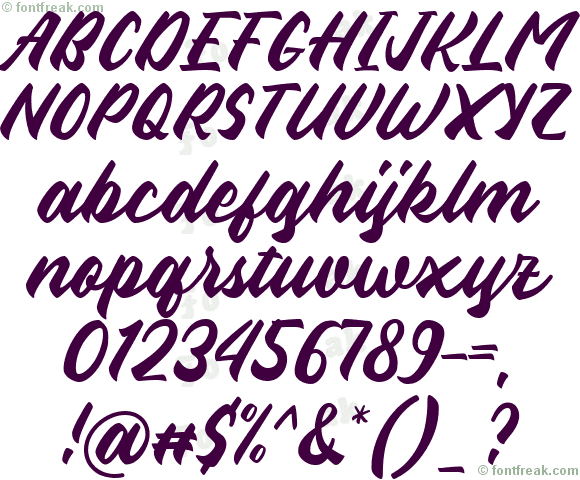
Aliena
About Aliena
Aliena, designed by Situjuh Nazara in 2018, is a striking display typeface that captures attention with its unique visual flair. This font falls under the category of decorative scripts, characterized by its fluid, cursive strokes that evoke a sense of elegance and creativity. The Aliena font features a medium stroke weight with moderate contrast, providing a balanced appearance that enhances readability while maintaining its artistic essence. The letterforms exhibit a graceful flow, with slightly exaggerated curves and embellishments that contribute to its distinctive style, making it a great choice for various design projects.
With its captivating aesthetic, Aliena is particularly well-suited for wedding invitations, where its romantic style can enhance the overall theme. It also shines in creative branding for restaurants, adding a touch of sophistication to menus and signage. Movie posters can benefit from the font's dramatic flair, drawing viewers in with its artistic presentation. Additionally, small business owners looking to create engaging social media graphics will find Aliena an excellent choice for eye-catching visuals. The font appeals to graphic designers and content creators alike, providing a versatile option for those aiming to make a memorable impact.
What sets Aliena apart is its ability to convey emotion while remaining functional. The combination of its artistic curves and legibility makes it a valuable asset for any designer's toolkit. Whether you're crafting an elegant invitation or a bold promotional piece, Aliena provides a unique voice that stands out in a crowded market. For those eager to elevate their design projects, the Aliena font free download offers an opportunity to access this exceptional typeface and unleash creativity in new and exciting ways.